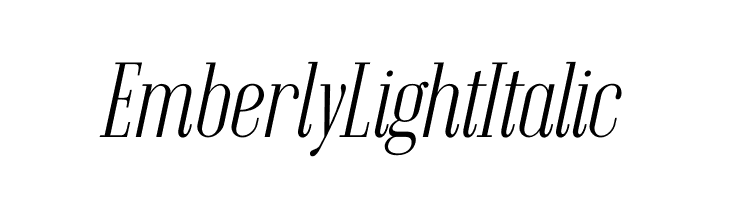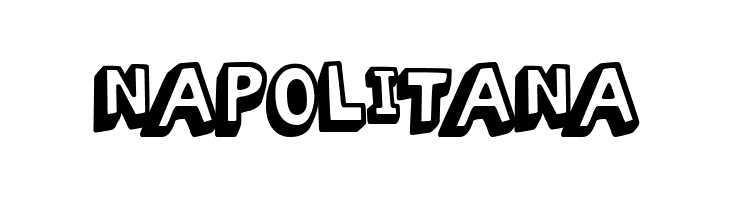
A playful, handwritten font with bold, irregular strokes.
A playful, bold font with thick, rounded strokes and a whimsical style.
A playful, bold, and rounded hand-drawn font with a whimsical style.
A bold, decorative font with a mechanical and futuristic style.
An artistic, narrow font with elongated characters and a playful yet sophisticated style.
A decorative font with intricate geometric and abstract patterns.
A playful, block-inspired font with mechanical bolt details.
A bold, decorative font with star patterns and a vintage marquee style.
A bold, decorative font with geometric shapes and intricate patterns.
A playful, bold, and rounded font with a hand-drawn feel.